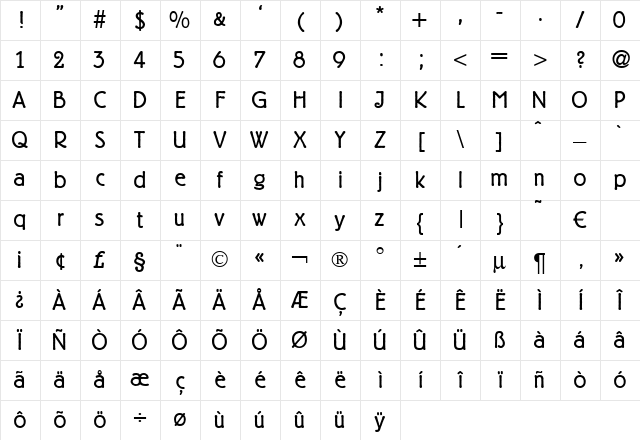
Complete BeginnerDB Normal glyph index. Displaying only characters natively supported by BeginnerDB Normal font.
BeginnerDB is a composed and adaptable typeface that performs quietly and consistently across a wide range of design contexts.